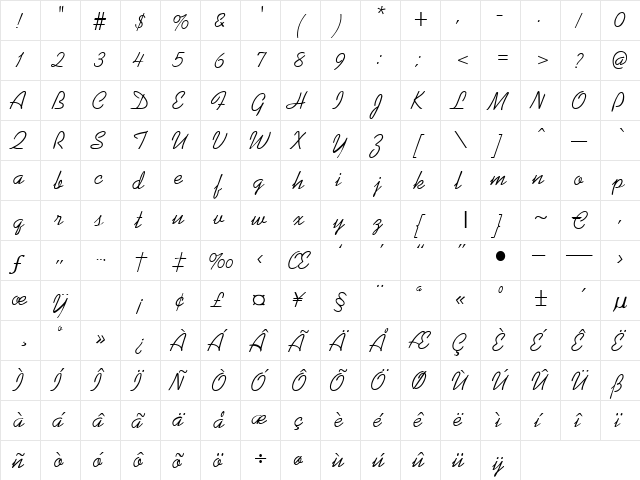
Septime Regular
Septime takes a measured approach to typography — its balanced proportions and neutral character make it a reliable workhorse for both digital and print work.
Pro Tip: Use Septime in both headline and body roles to test its range before committing to a single application.